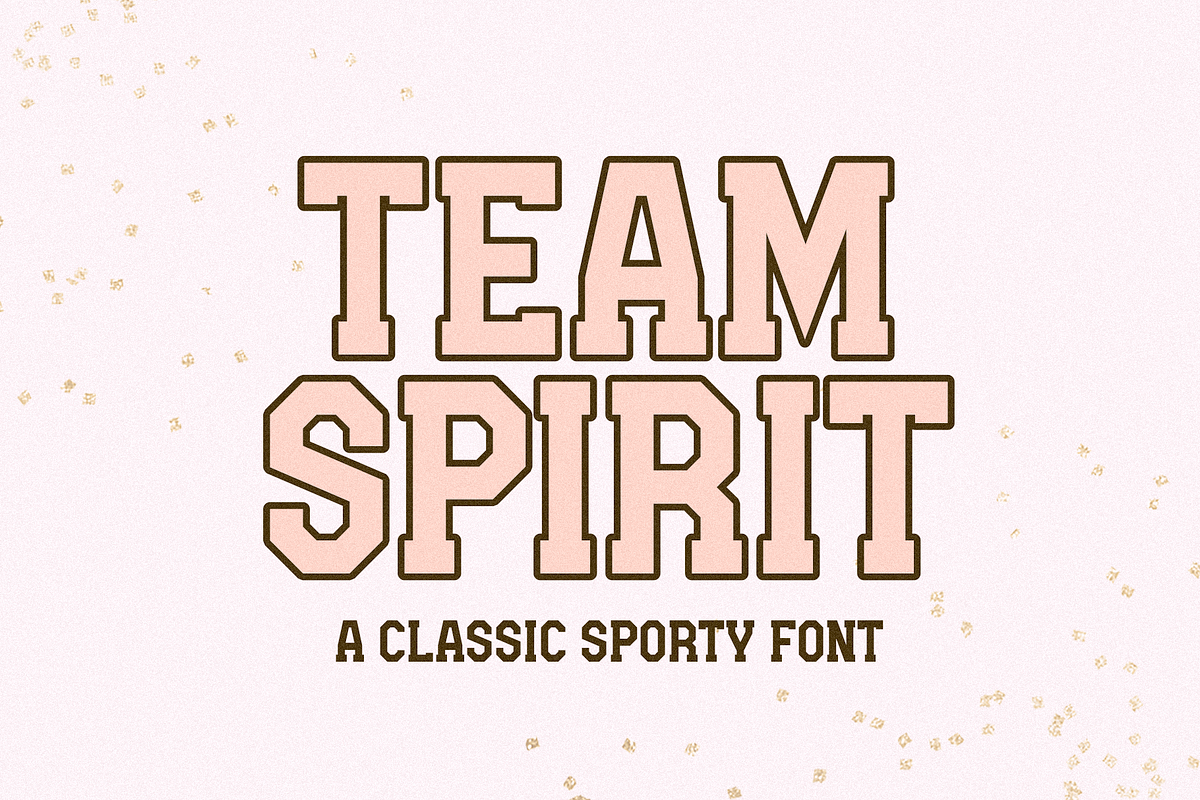
Team Spirit | Retro Sports Font Free Download is a bold, energetic typeface inspired by classic varsity lettering and vintage athletic aesthetics. With strong lines, blocky serifs, and a nostalgic feel, this font is perfect for sports team logos, game-day posters, merchandise, school branding, and anything that needs a punch of competitive pride and retro flair.
Designed to evoke the spirit of teamwork, tradition, and victory, Team Spirit delivers high-impact readability and timeless appeal. It’s ideal for both print and digital use, and works great on apparel, banners, and bold social media graphics. You’re free to test it out, but a commercial license is required for any professional or profit-based usage.
Bring the heat to your next project with Team Spirit | Retro Sports Font Free Download and channel the bold energy of classic athletics into your design. It’s a must-have for creatives who love old-school sports vibes with a modern twist.